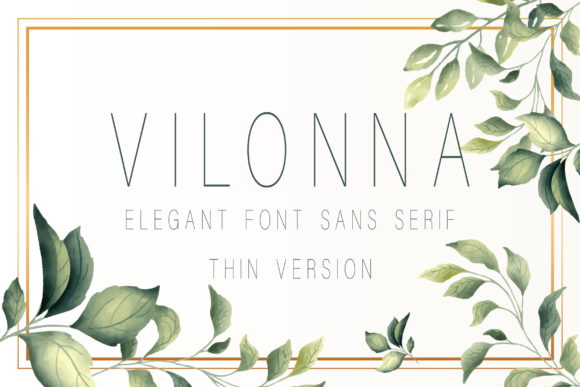
Journey through time and embrace the timeless elegance of Vilonna Thin Font, a masterpiece inspired by the vibrant era of mid-century modernism. This captivating sans serif font, brought to life by the creative minds at Huntype, exudes a sense of sophistication and charm that will leave you spellbound.
With its clean lines and sharp edges, Vilonna Thin Font embodies the essence of minimalism, allowing your words to shine with clarity and precision. Its two weights, Regular and Bold, provide you with the flexibility to create striking visual contrasts, emphasizing important elements of your design and capturing the attention of your audience.
Unleash your creativity with Vilonna Thin Font, the perfect choice for a wide range of projects. Craft stunning logos that exude professionalism and timelessness, design elegant wedding invitations that reflect the joy and romance of your special day, or create eye-catching advertisements that demand attention.
Imagine your words taking center stage in Vilonna Thin Font's embrace, whether in the pages of a magazine, the headlines of a newspaper, or the vibrant world of digital media. Its versatility extends to print, magazines, and beyond, making it a font that adapts effortlessly to any medium.
With Vilonna Thin Font, you'll discover a font that transcends trends and remains eternally stylish. Its mid-century modern roots infuse your designs with a touch of nostalgia, while its clean and contemporary aesthetic ensures that your creations stay relevant and captivating.
Elevate your designs to new heights with Vilonna Thin Font, the font that speaks volumes without uttering a single word. Its timeless beauty and versatility will transform your creative endeavors, leaving a lasting impression on all who encounter them.